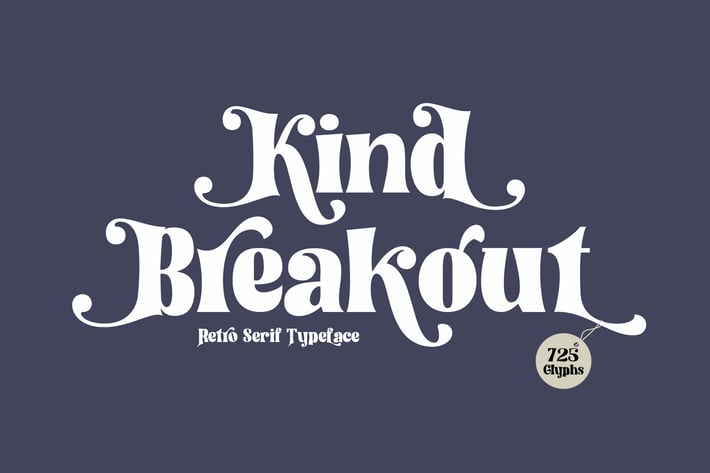
Kind Breakout - Retro Serif Font
Kind Breakout Retro Font is a bold and modern take on 70s-style lettering that gives a playful and young vibe to any design.
If your latest project needs a touch of sass, it's time to introduce Kind Breakout to your font library. This stylish typeface features OpenType features like ligatures, stylistic alternatives, stylistic sets, swashes, discretionary ligatures, and even comes as a Web font.
This font is perfect for posters, logos, stationery, and any design looking for a timeless form. This is a one-of-a-kind vintage font that is waiting to impress.